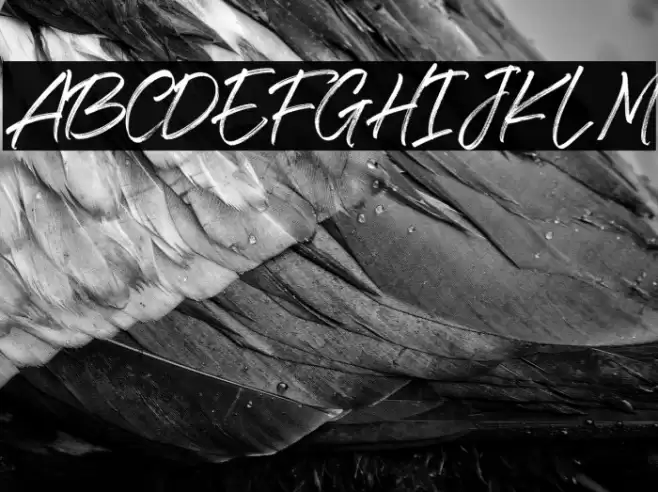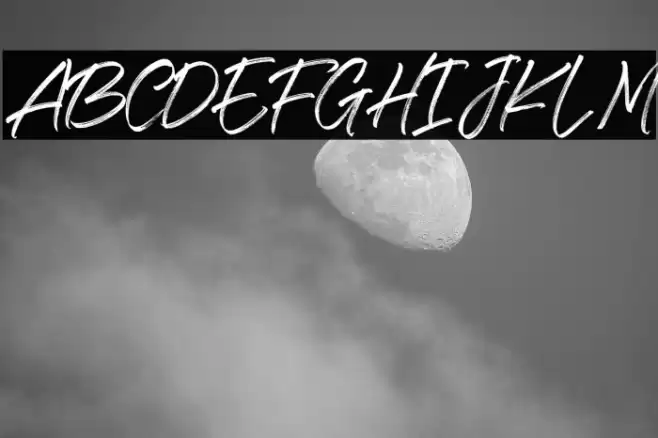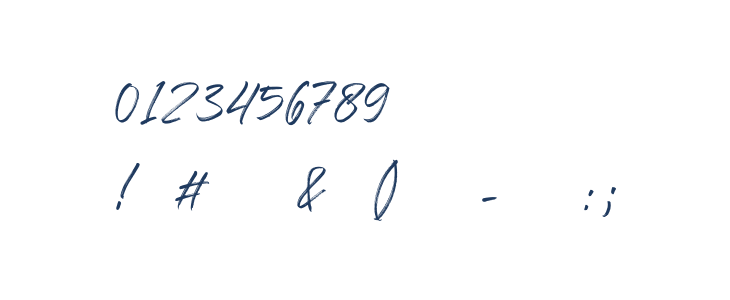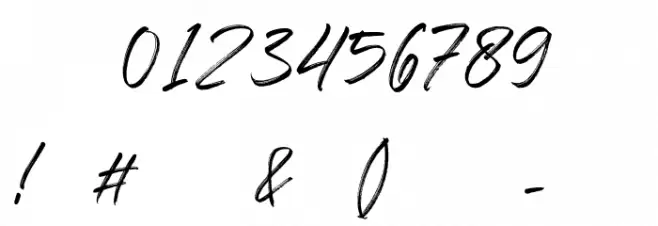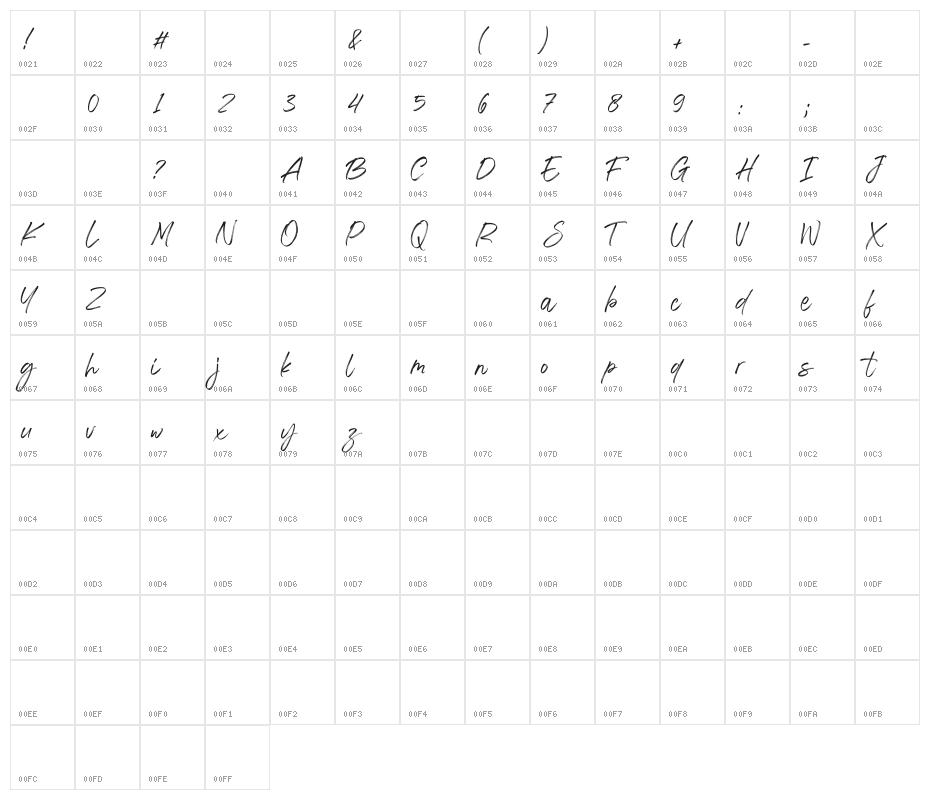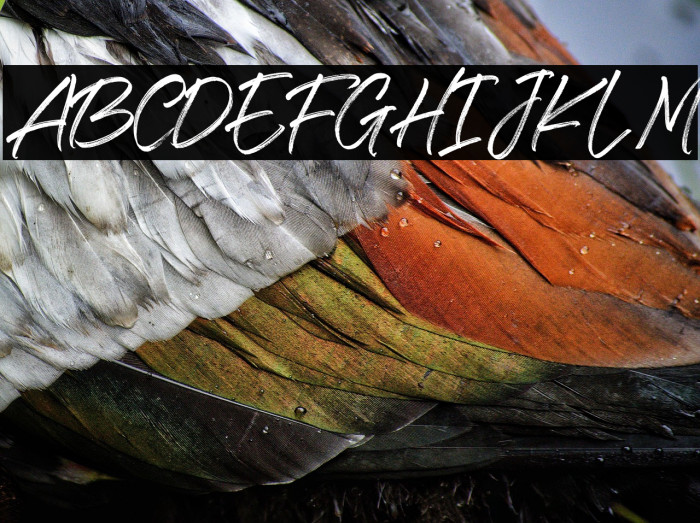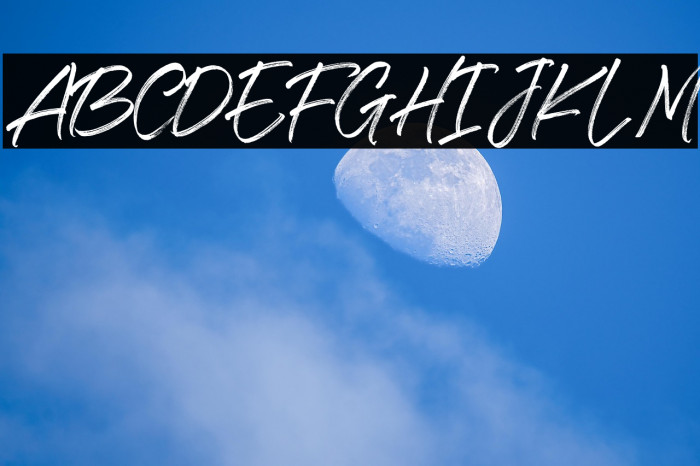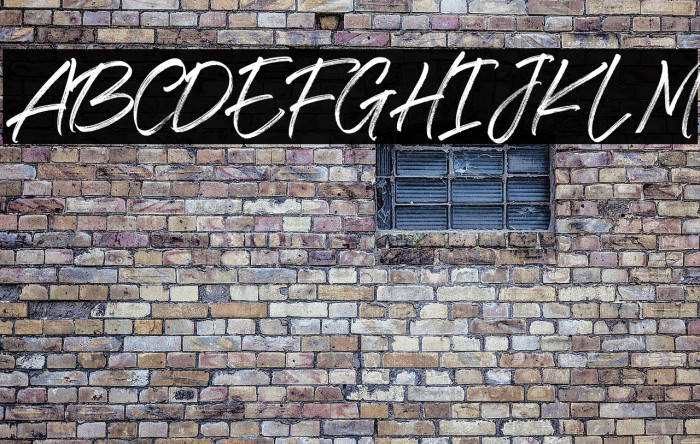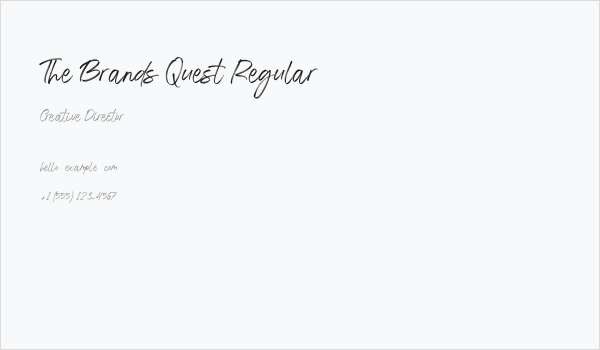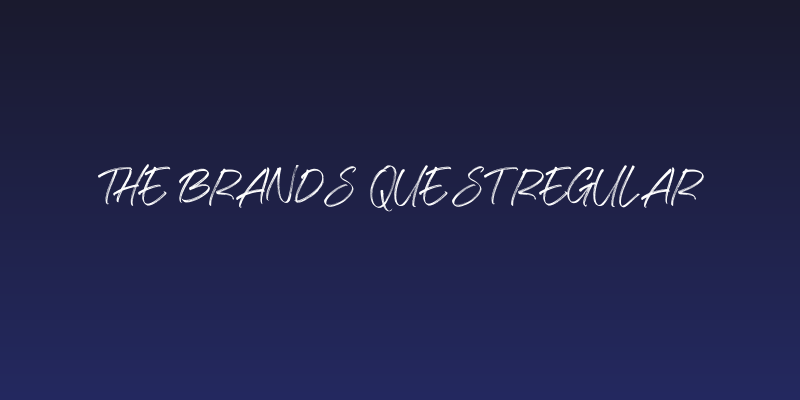
The Brands Quest Regular Font
The Brands Quest Regular Description
This font exudes a dynamic and energetic feel with its handwritten style, characterized by fluid, sweeping strokes that convey a sense of movement and personality. The letters are slightly slanted, adding to the casual and informal appearance. The uppercase letters are bold and prominent, while the lowercase letters maintain a consistent flow, enhancing readability. The numerals are distinct and well-integrated with the overall style, making them suitable for various applications. Special characters are creatively designed, maintaining the font's lively essence.
A dynamic handwritten font with fluid, sweeping strokes and a casual, energetic style from Uncategorized fonts.
- Font: The Brands Quest Regular
- Proposed Projects: Ideal for branding, invitations, greeting cards, and social media graphics where a personal touch is desired.
- Use Case: Logos, Headlines, Invitations